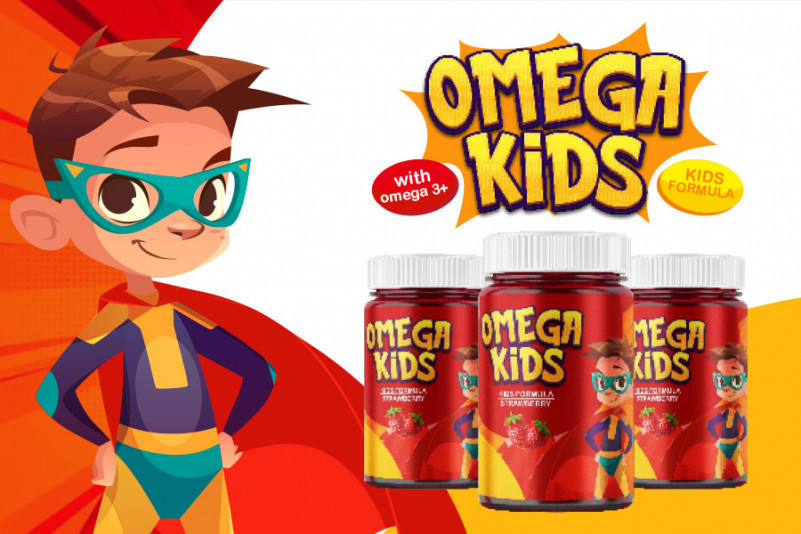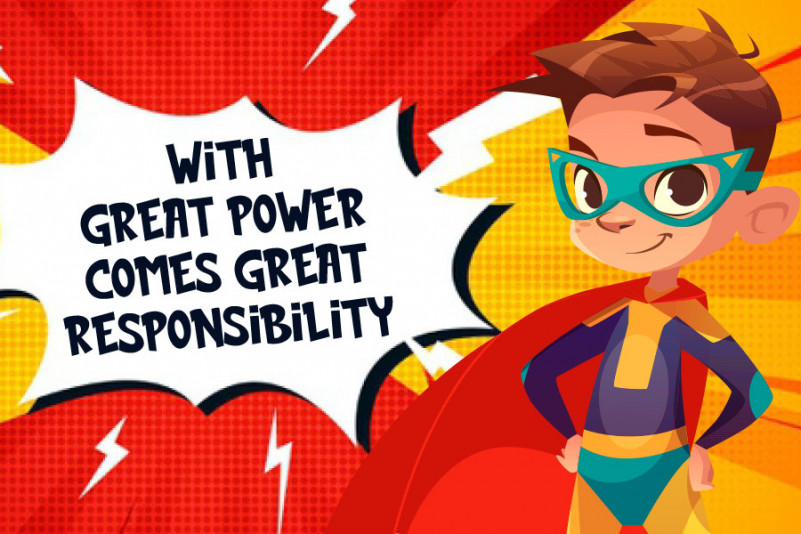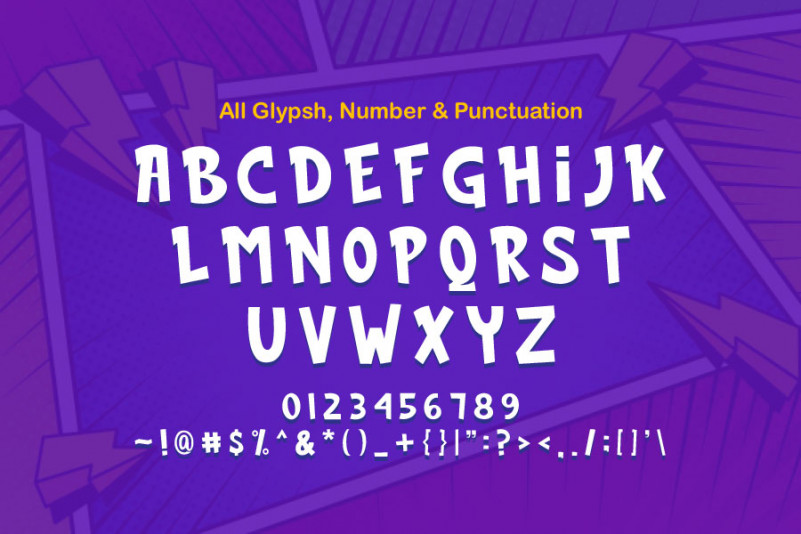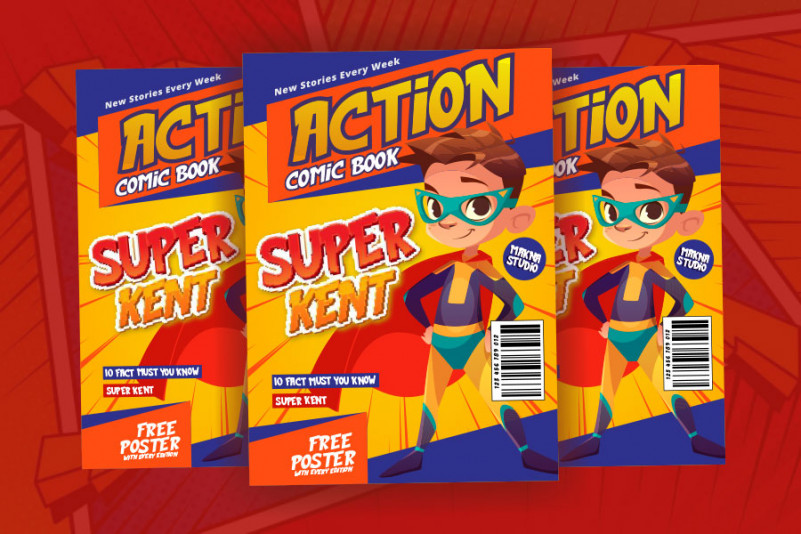
BRICK COMIC Font
BRICK COMIC Display Font
This is a font with cartoon themes, this font we build for your project with cartoon styles match for a comic book, kids storybook, or games with kids themes cool cartoon font best comic book font Super superhero themes font